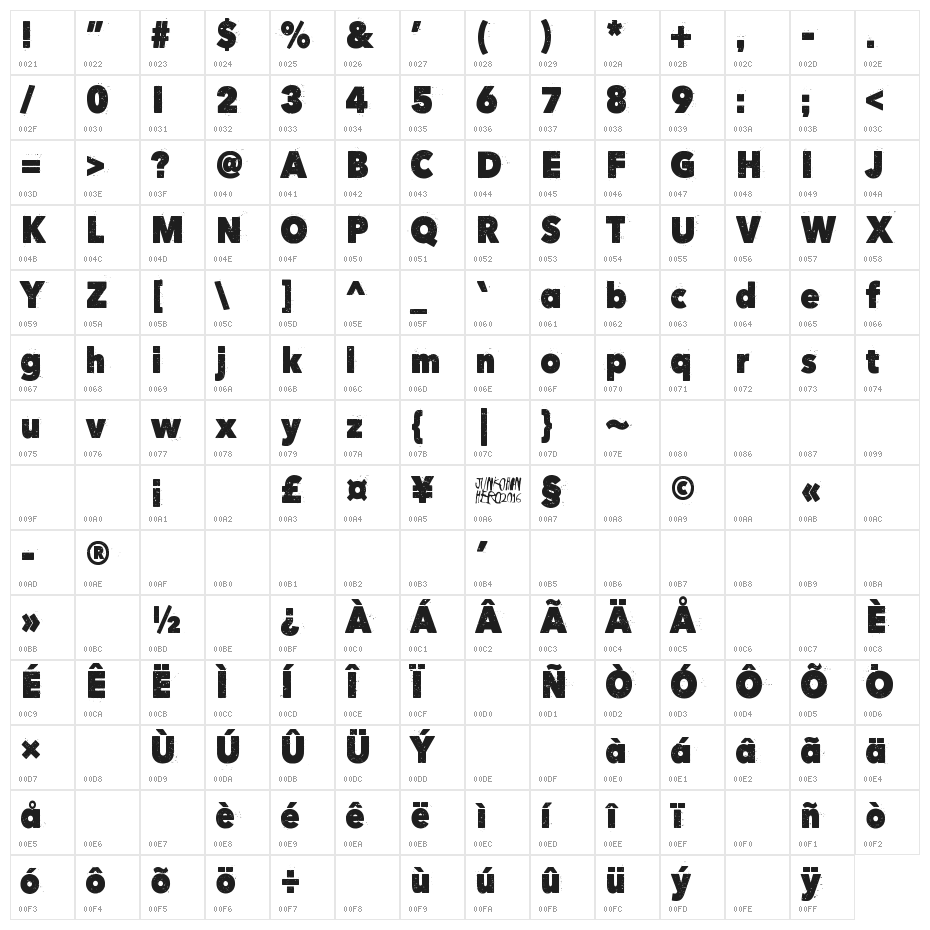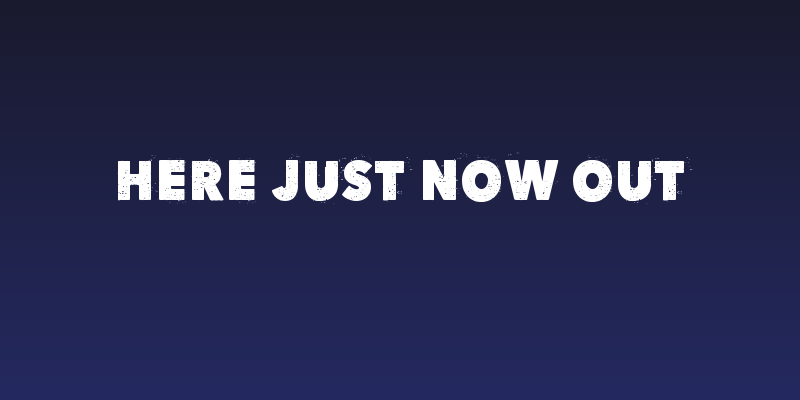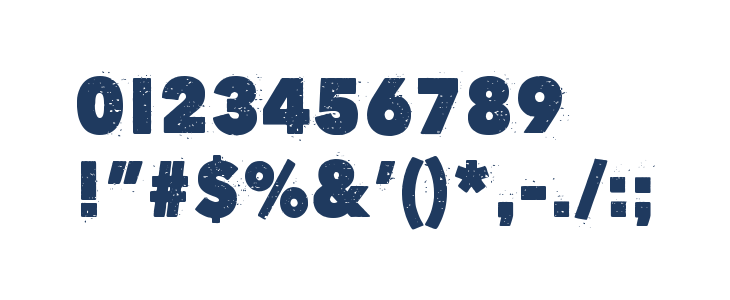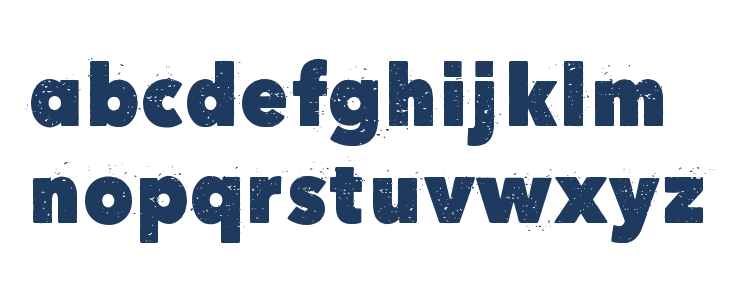
Here Just Now Out Font
Here Just Now Out Description
This font features a bold and impactful design with a distressed texture, giving it a rugged and vintage appearance. The characters are uniformly thick, creating a strong visual presence. The uppercase and lowercase letters maintain a consistent style, with rounded edges that soften the overall look. The numerals and special characters are designed to match the boldness of the alphabet, ensuring a cohesive appearance across all elements. This font's distressed texture adds a unique character, making it suitable for projects that require a touch of nostalgia or a handcrafted feel.
| Proposed Projects | Ideal for posters, logos, branding, and packaging that require a bold, vintage aesthetic. |